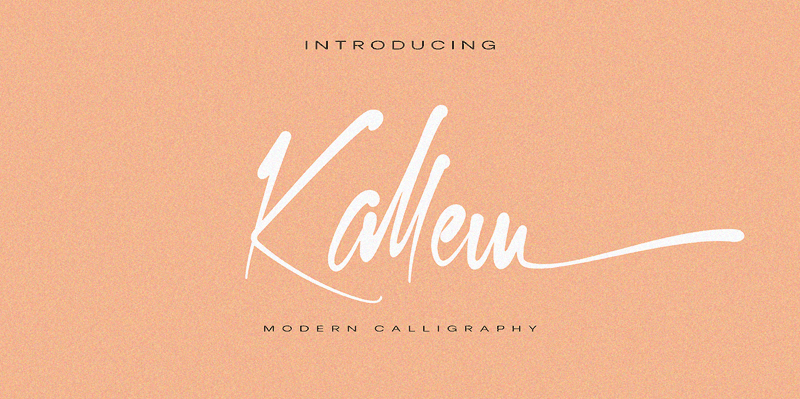
Preview and download Kallem Font. Created by Khaiuns in Script Calligraphy styles with Free for personal use license.
Font name: | Kallem |
Author: | Khaiuns |
Note by Khaiuns | |
Kallem is a stylish modern Calligraphy font with magical pressure. i hope this font perfect for creating signature logos and watermarks for photography studio or wedding invitation, best for initial or branding logo signature. NOTE: This demo font is for PERSONAL USE ONLY! But any donation are very appreciated. Paypal account for donation : https://paypal.me/khaiuns Link to purchase full version and commercial license: https://www.creativefabrica.com/product/kallem/ And follow my instagram for update: https://www.instagram.com/khaiuns/ Thank you |